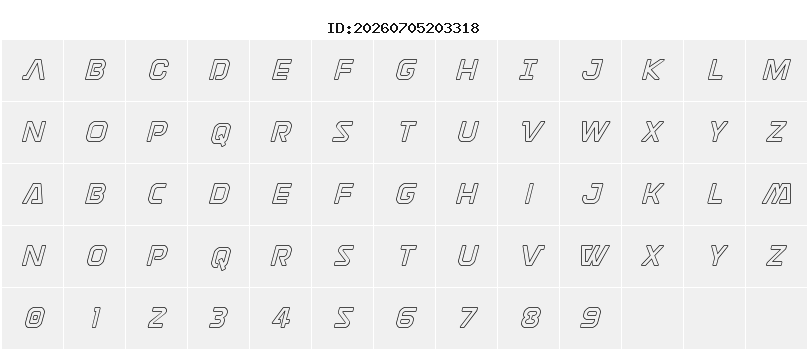
Discotechia Outline Preview
• Font Name: Discotechia Outline
• Font Style: Italic Outline
• Full Font Name: Discotechia Outline
About Discotechia Outline.ttf
Discotechia Outline.ttf is a modern, elegant sans-serif font designed for ultimate readability and visual harmony. Perfect for branding, headlines, web design, and print materials.